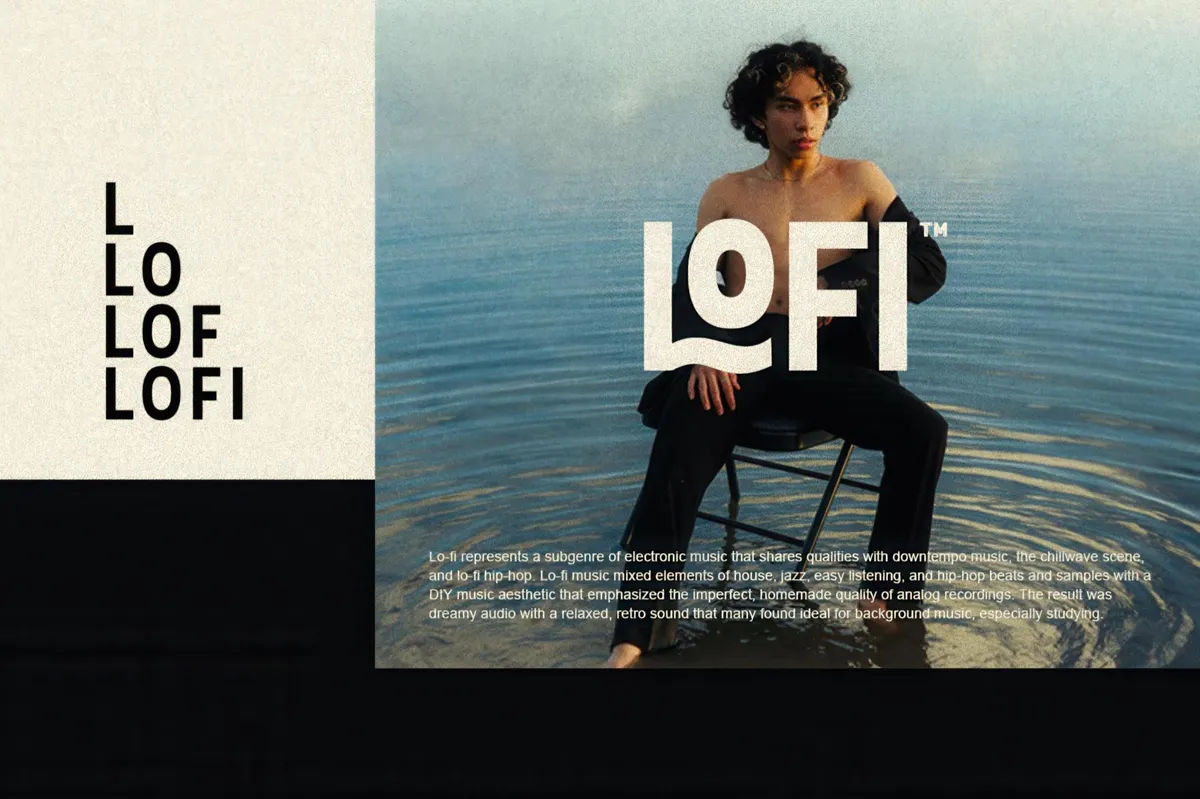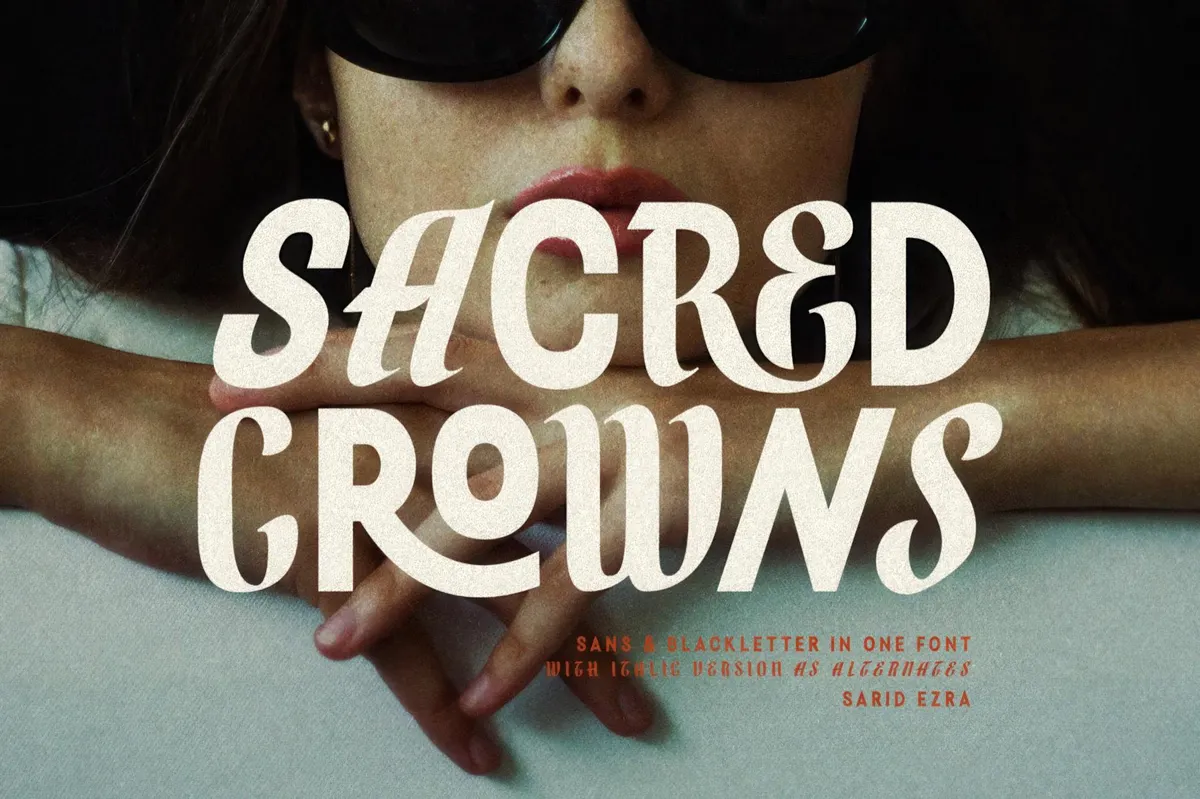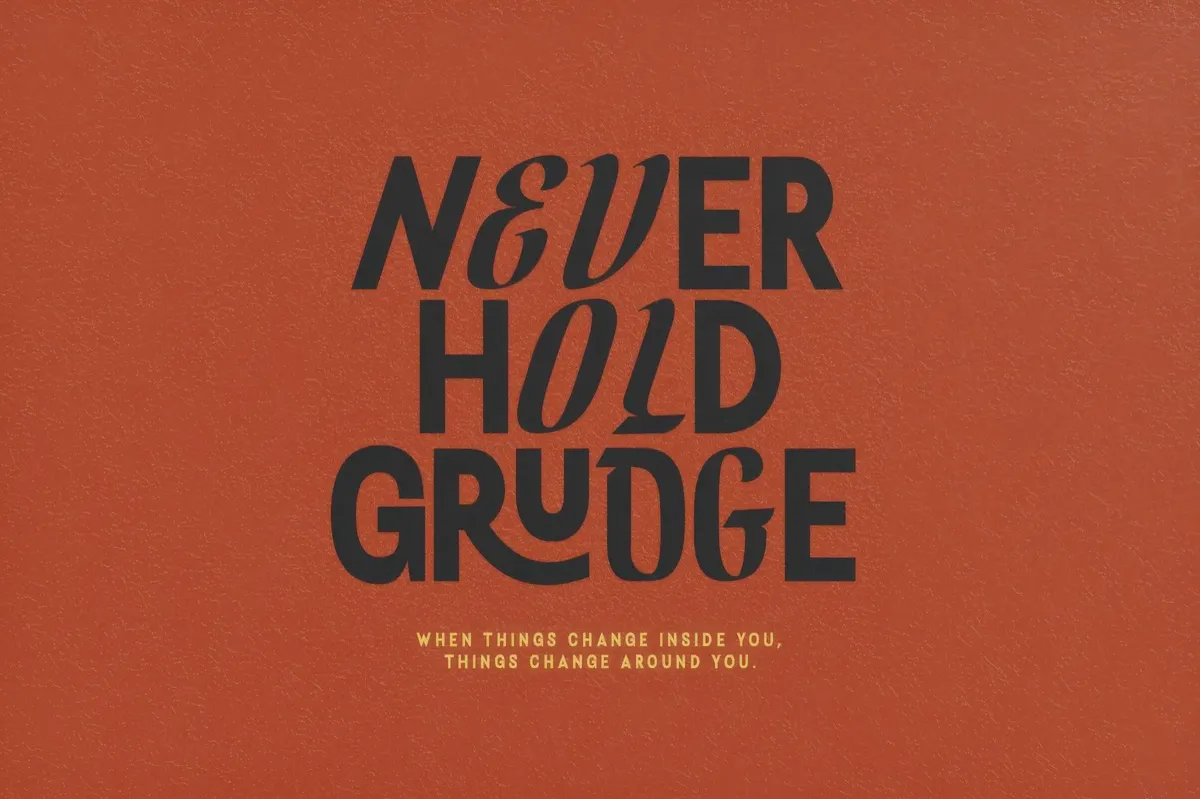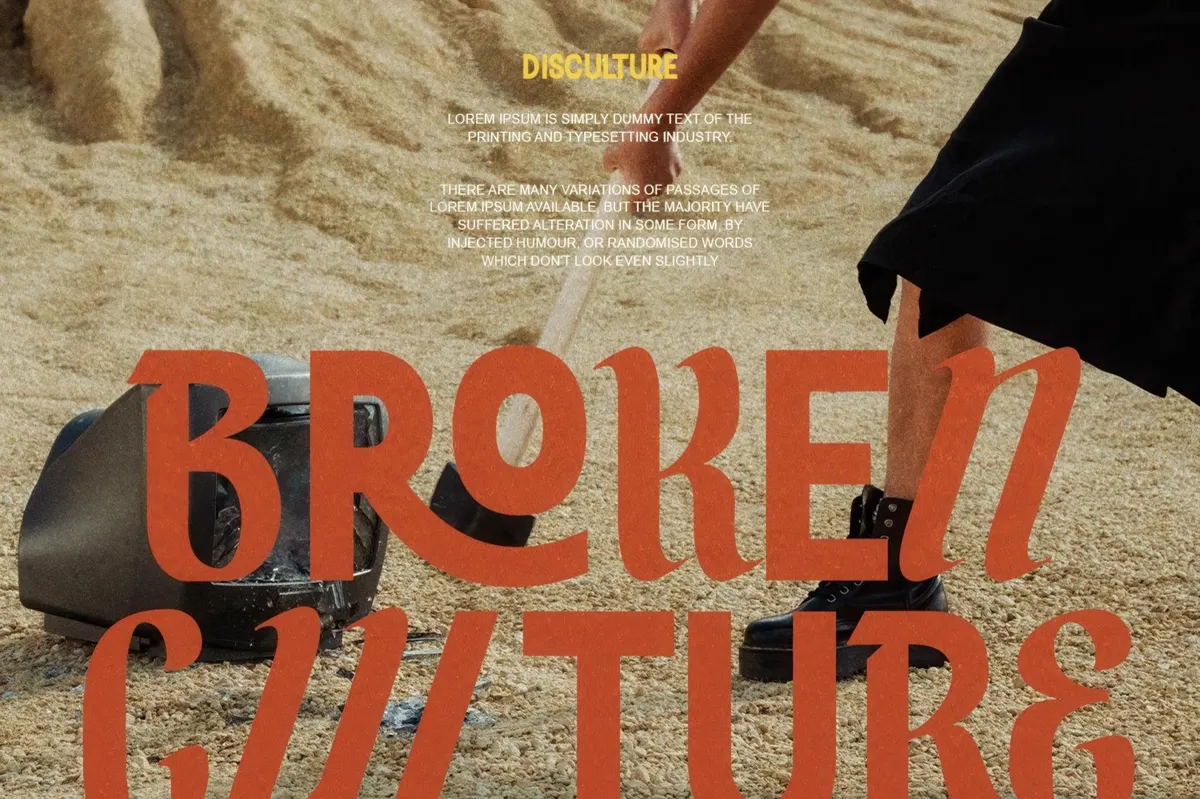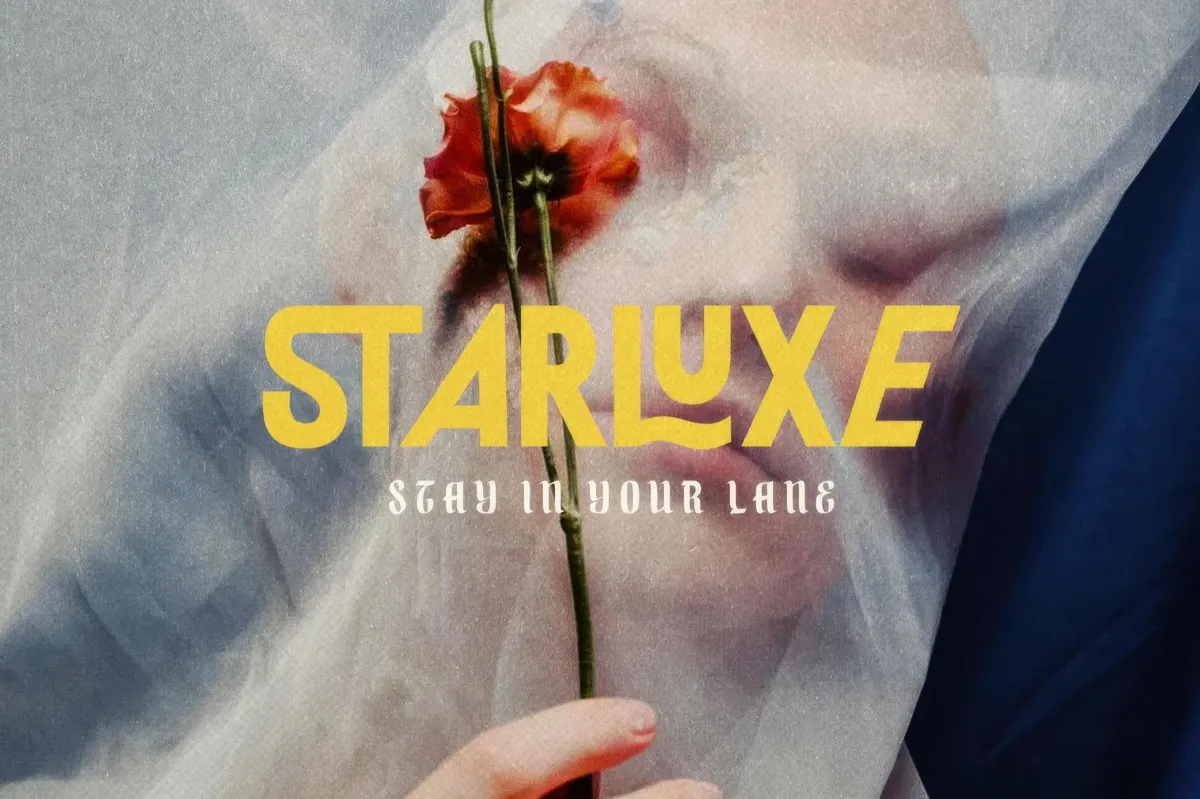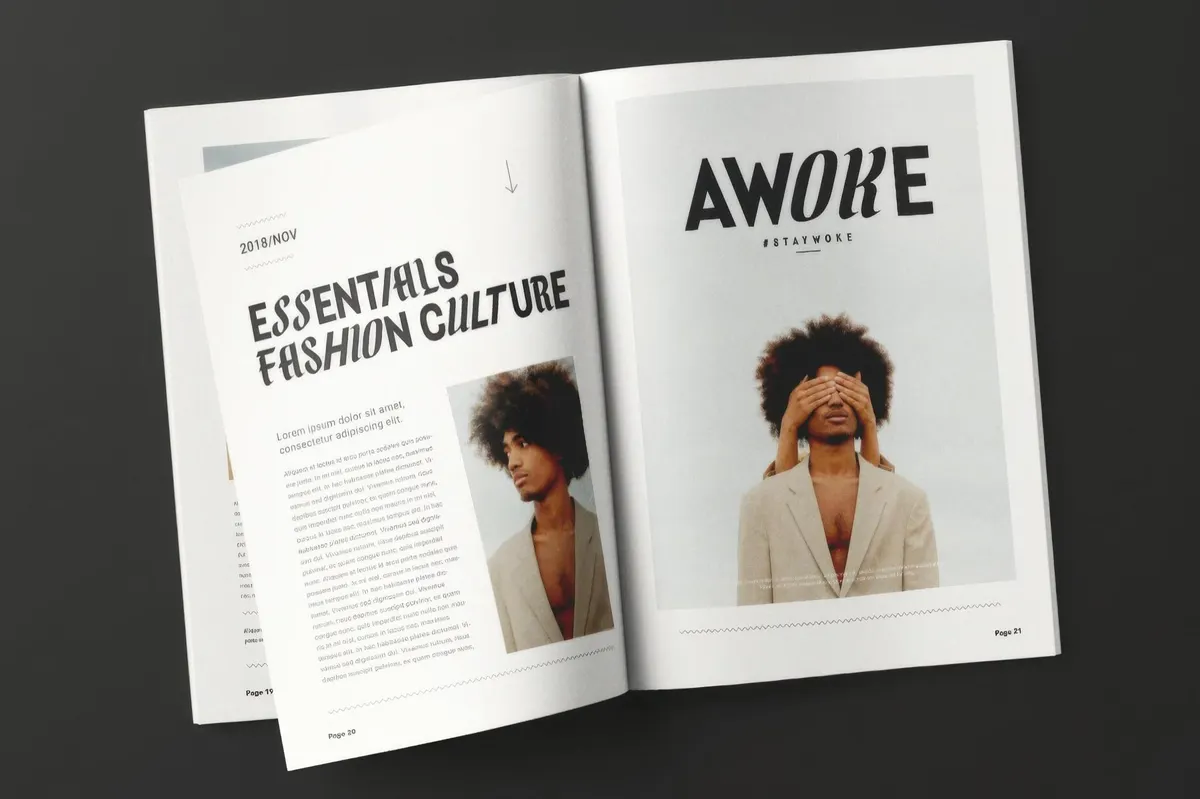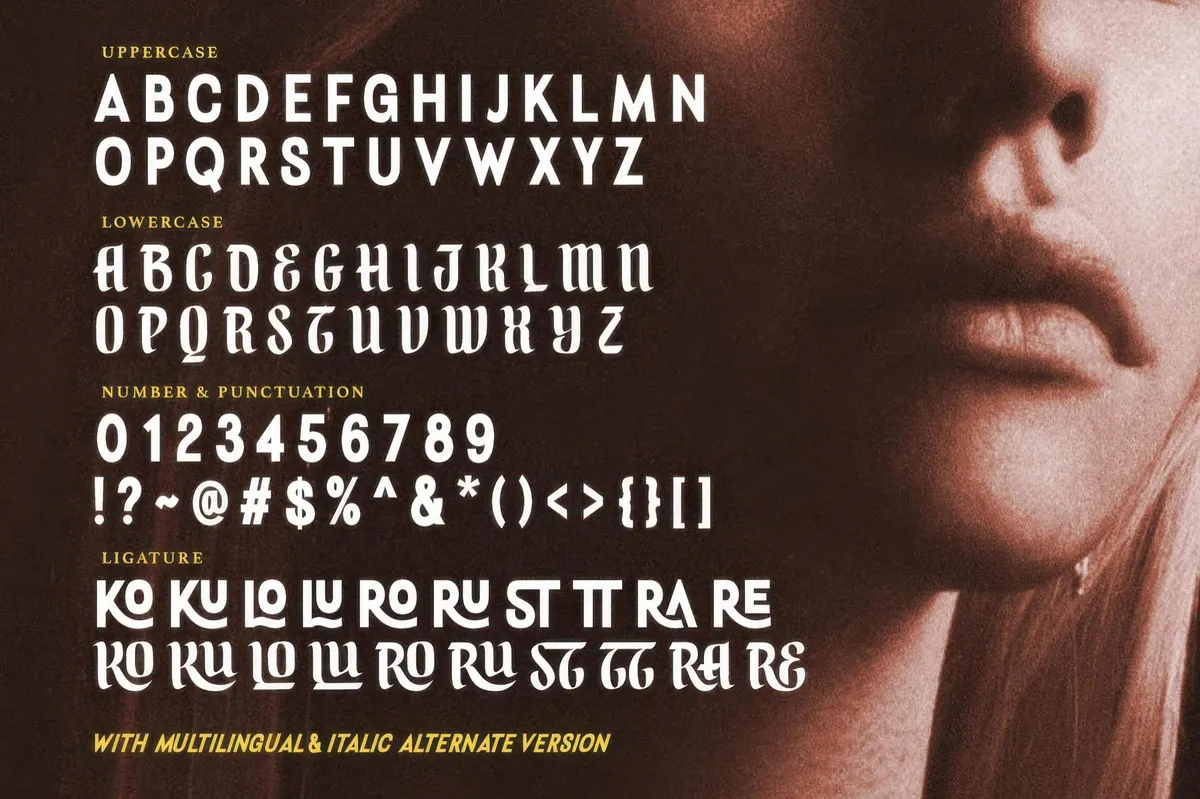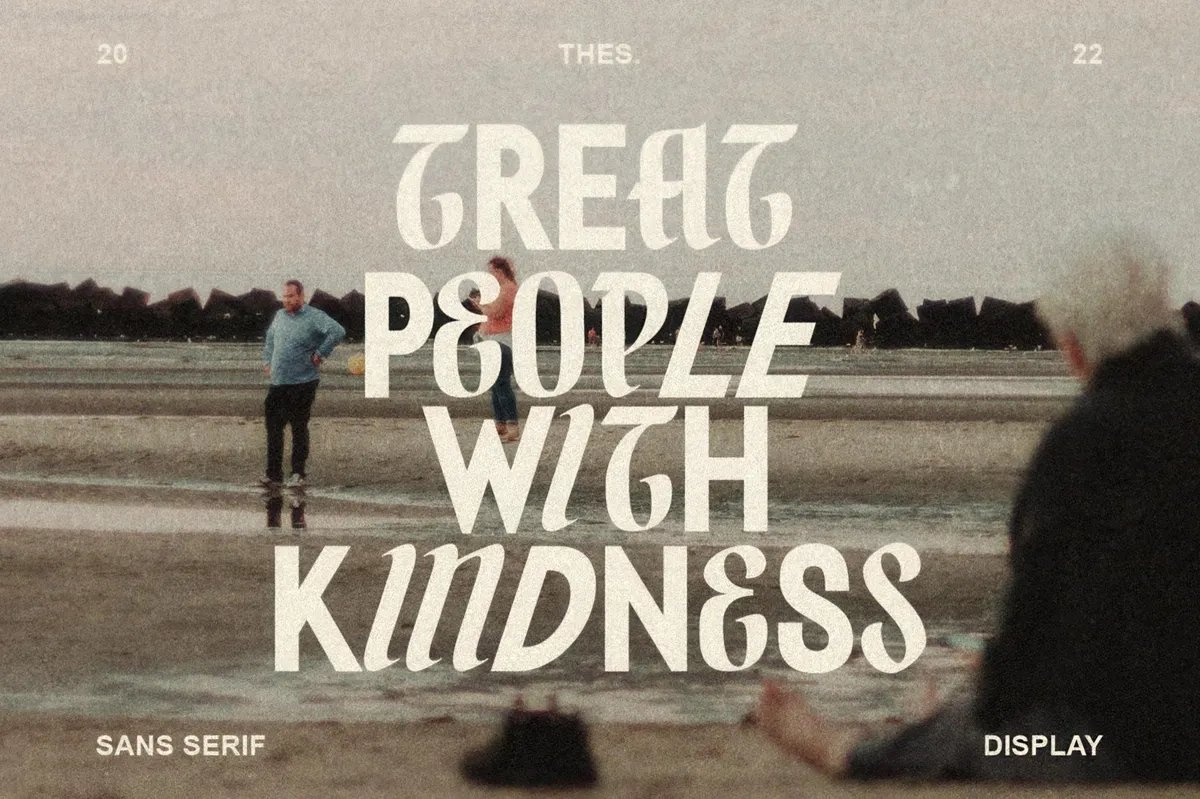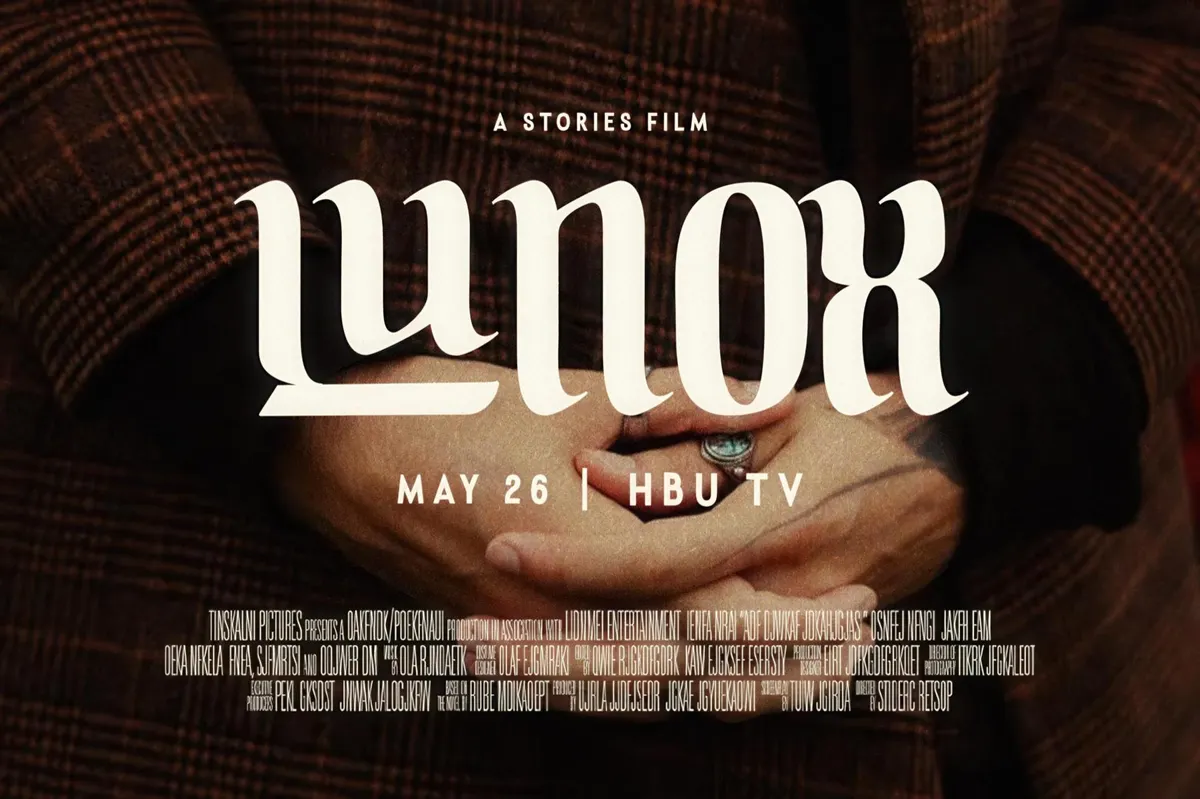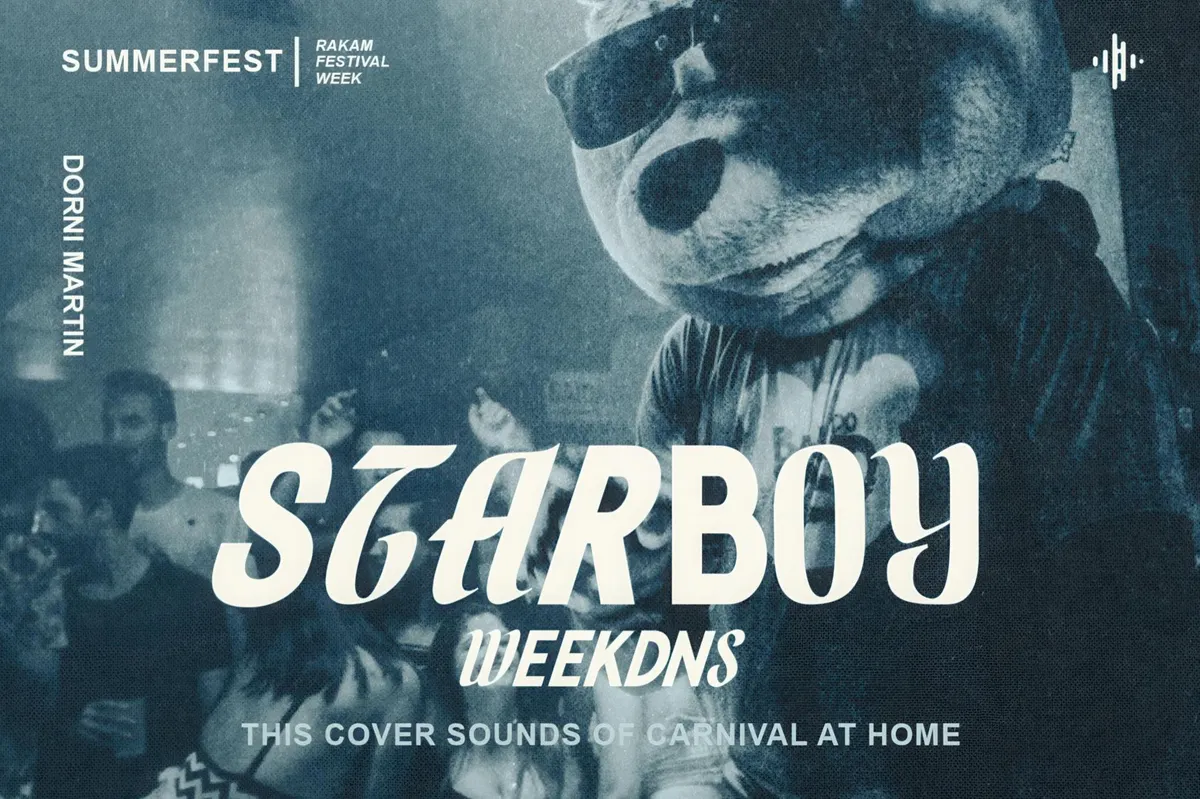
Sacred Crowns — 2 in 1 Display Font
This dual-style font is a typographic power move, seamlessly merging sans-serif uppercase with blackletter lowercase for a striking contrast. Its dynamic pairing ensures your message lands with impact. Primarily, it is packed with upper and lower case, punctuation, numerals, ligatures, and multilingual support. The italic alternates provide added versatility, while meticulous kerning keeps every composition razor-sharp. Sacred Crowns fits projects demanding a contemporary edge but rooted in historical character: from luxury branding to edgy streetwear, and from logos to editorials and posters.